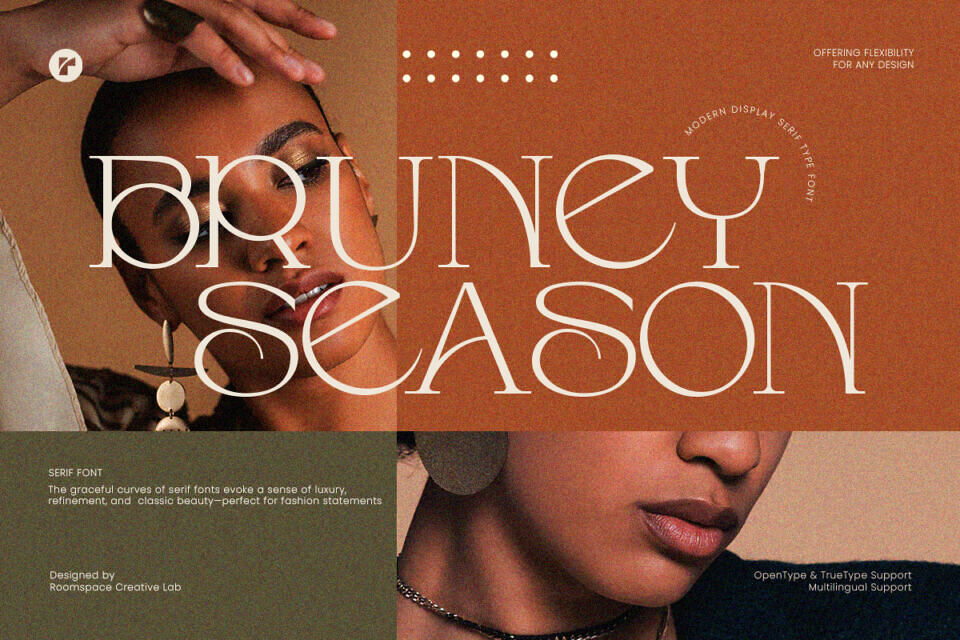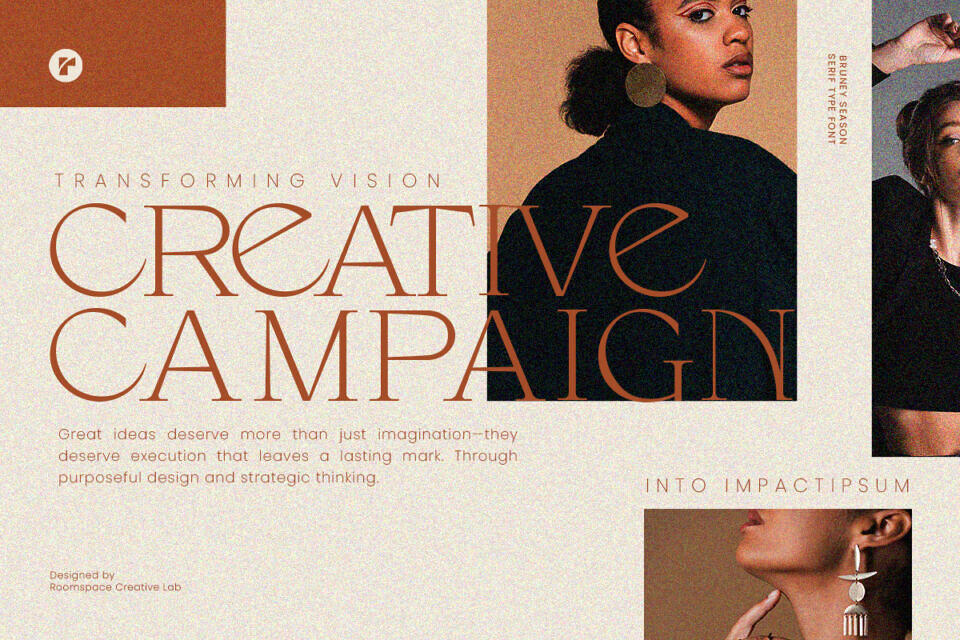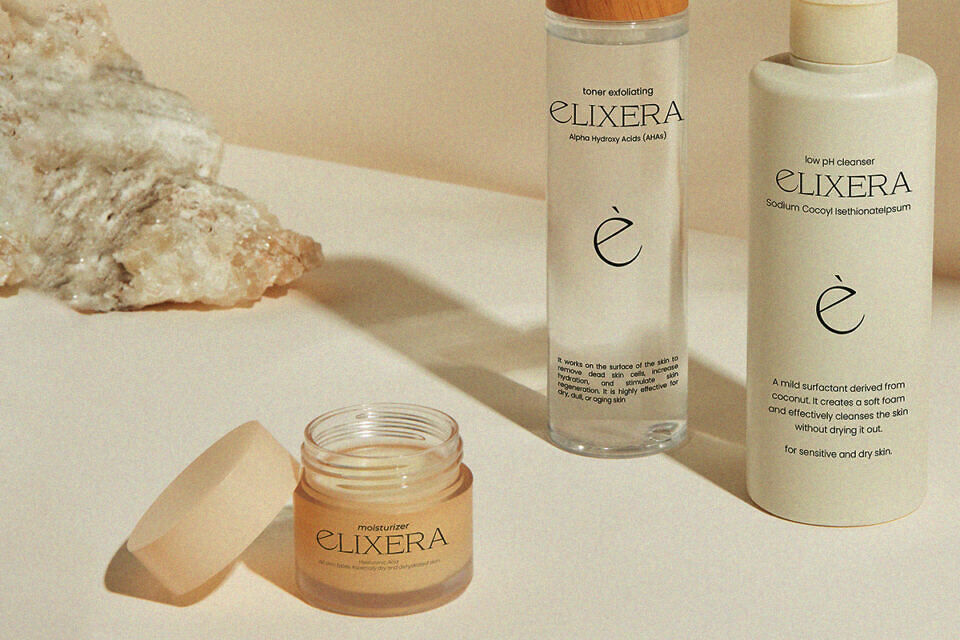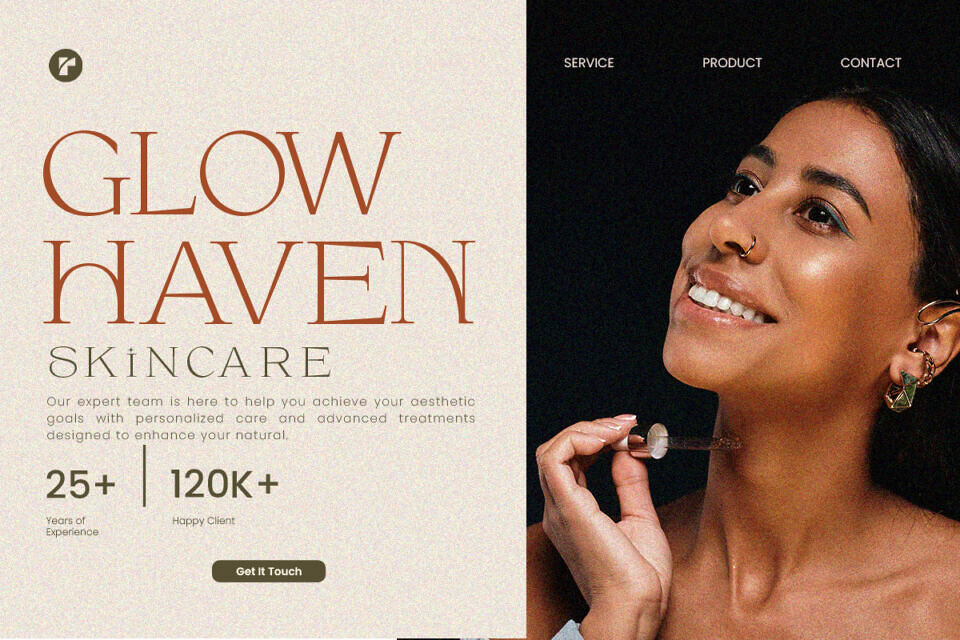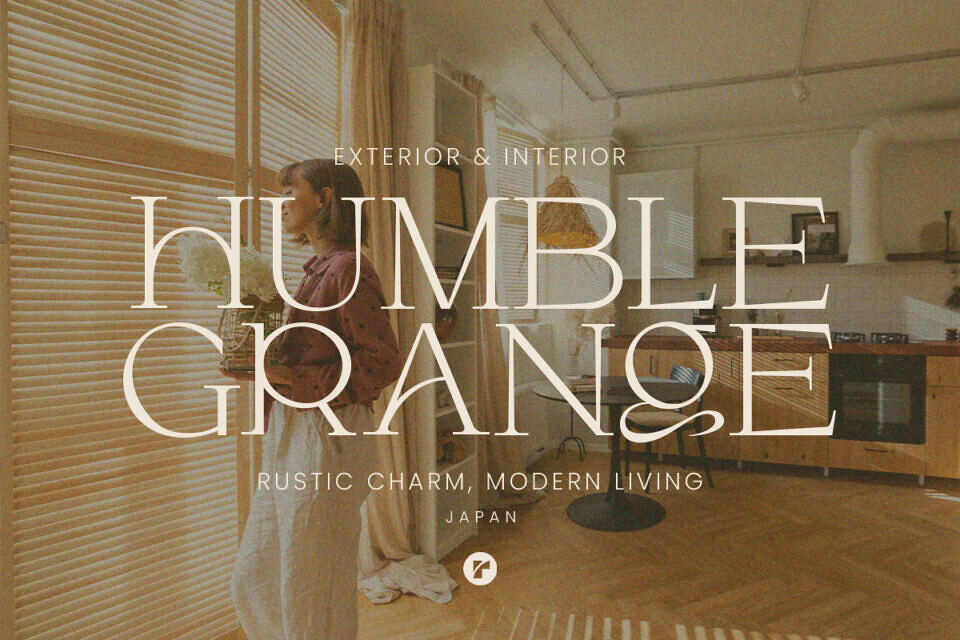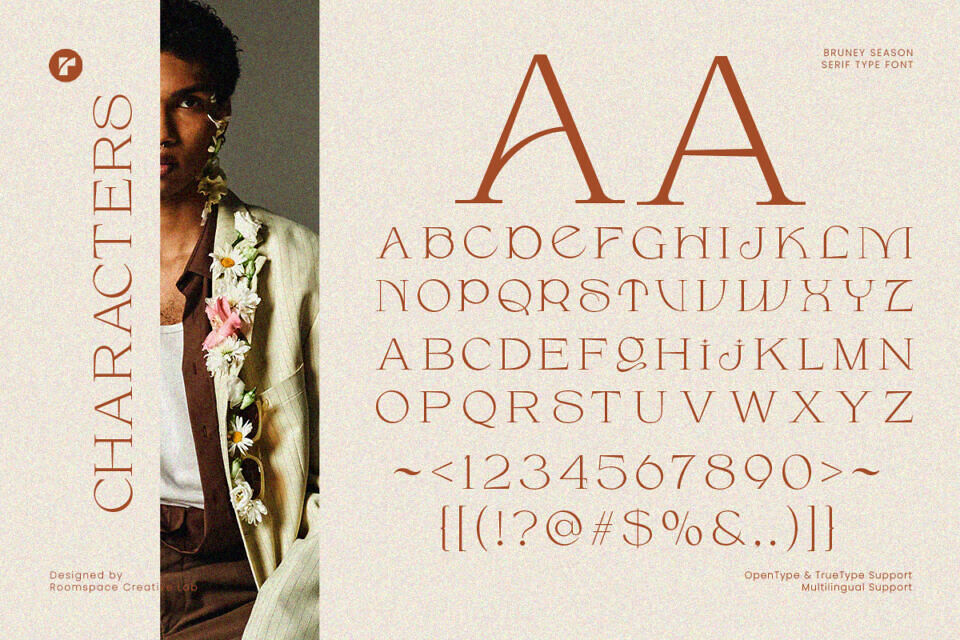
Bruney Season Font
Bruney Season is a modern elegant serif font that blends contemporary sophistication with timeless charm. Its graceful curves and refined proportions create a sense of high fashion and understated luxury, making it perfect for designers who value both creativity and balance. Bruney Season brings an effortless elegance that feels confident and captivating.
Each letter in Bruney Season is thoughtfully crafted, featuring stylish contrast, smooth ligatures, and consistent kerning for seamless readability. The refined serif details and gentle curvature give the font a distinctive character—strong yet feminine, bold yet graceful.
Perfect for fashion branding, editorial layouts, luxury packaging, wedding invitations, and modern social media design, Bruney Season adds a premium touch to every project. Whether you’re creating a timeless logo or a minimalist magazine spread, this font elevates your visual storytelling.